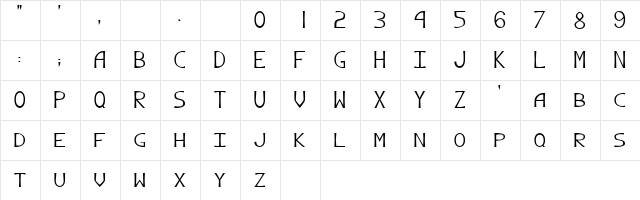
Angelus Regular
Design Context for Angelus Typeface
Angelus is a composed and adaptable typeface that performs quietly and consistently across a wide range of design contexts.
Pro Tip: Use Angelus in both headline and body roles to test its range before committing to a single application.